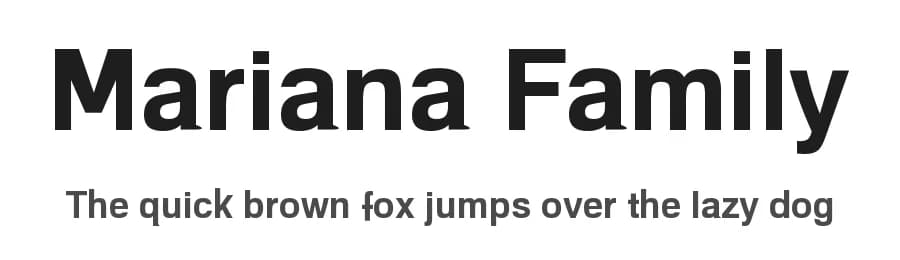
About Mariana Family Font
Mariana Family is a sans-serif font designed by Álvaro Thomáz. It includes 237 glyphs, a bold weight, TTF (TrueType) format, and 209 languages. Mariana Family is free to download; check the license details on this page before commercial use. Sans-serif fonts like Mariana Family work best for clean body text, user interfaces, branding, and modern layouts.
Mariana Family Font is a versatile sans-serif font that works for both headings and body text. Pair it with a contrasting serif or slab serif font to add visual interest and a clear distinction between titles and body copy.